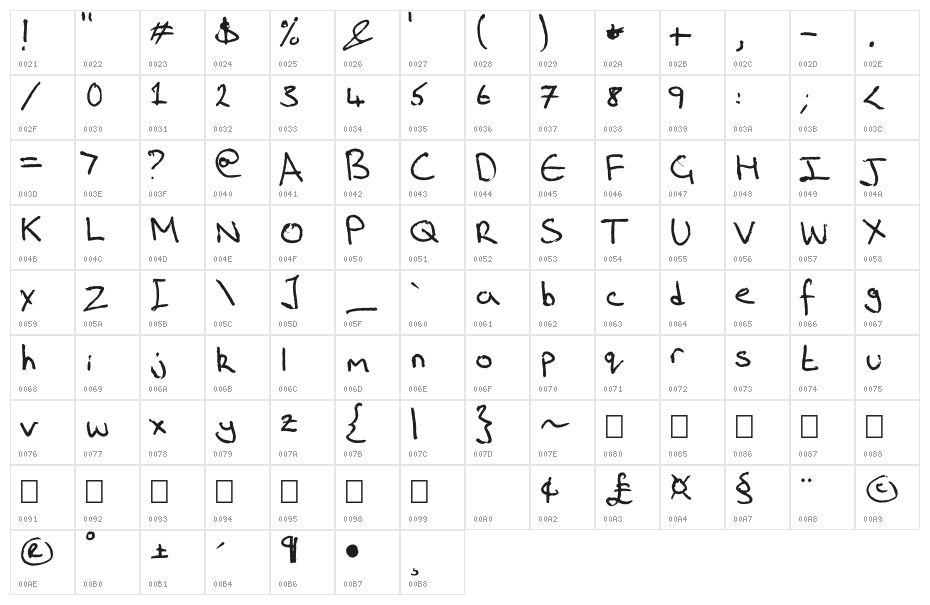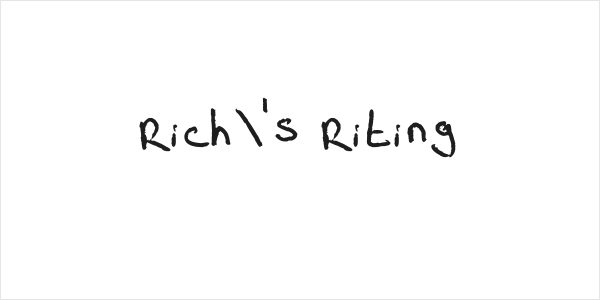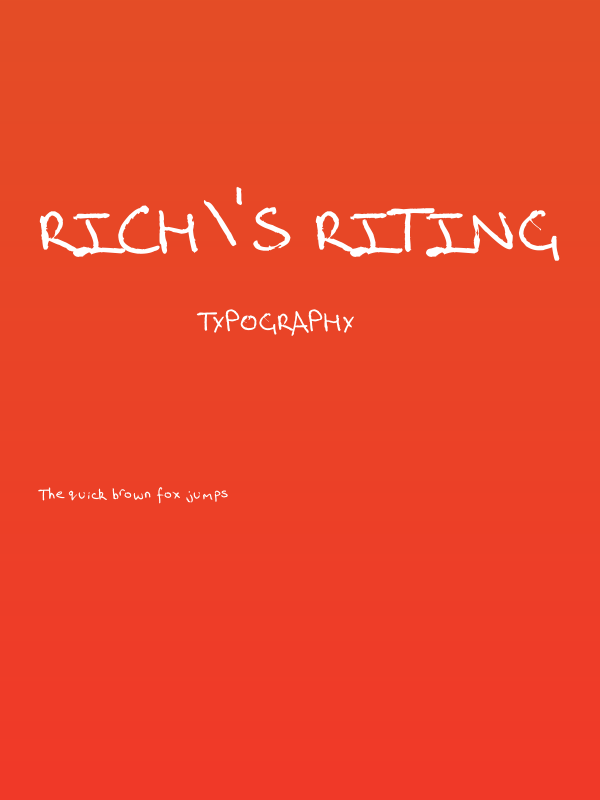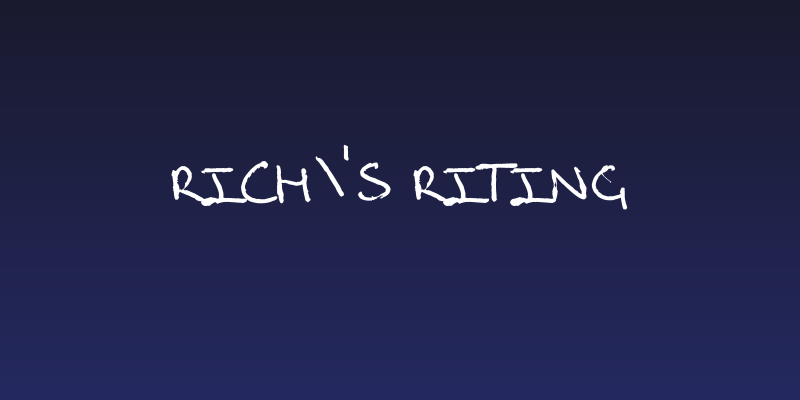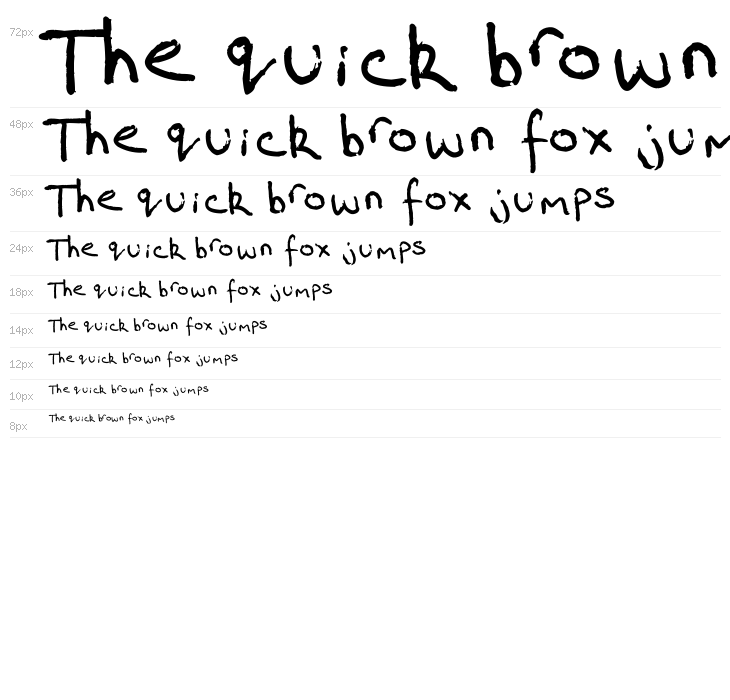
Rich's Riting Font
| Caz de utilizare | Logos, Invitations, Greeting Cards |
| Proiecte propuse | Ideal for greeting cards, personal notes, informal invitations, and creative projects that benefit from a personal, handwritten touch. |